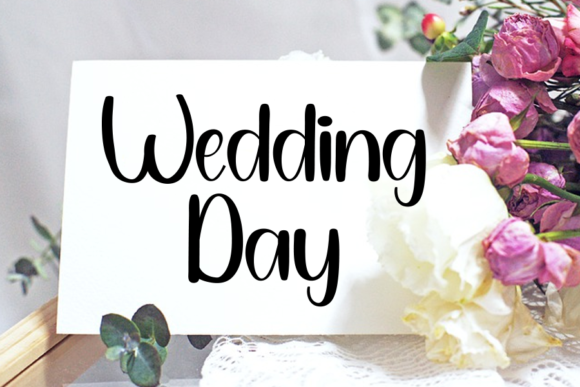
January Font
db-ku.com - Script & Handwritten -- January is a cute and delicate, lettered handwritten font that you can use for all chalkboard quotes or teaching material! Its authentic look will add a personal and realistic feel to your designs.